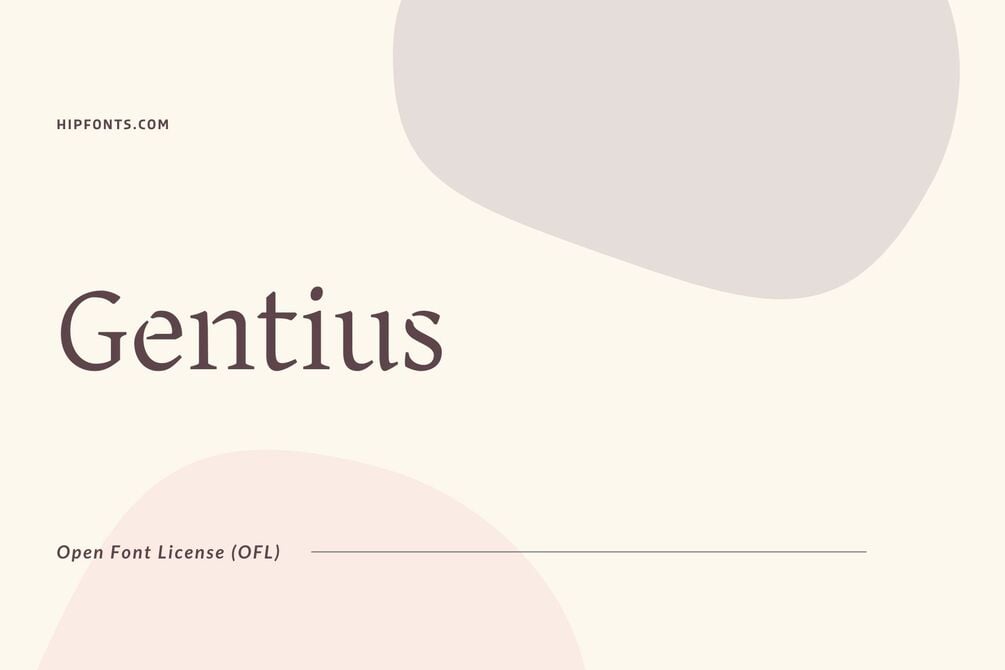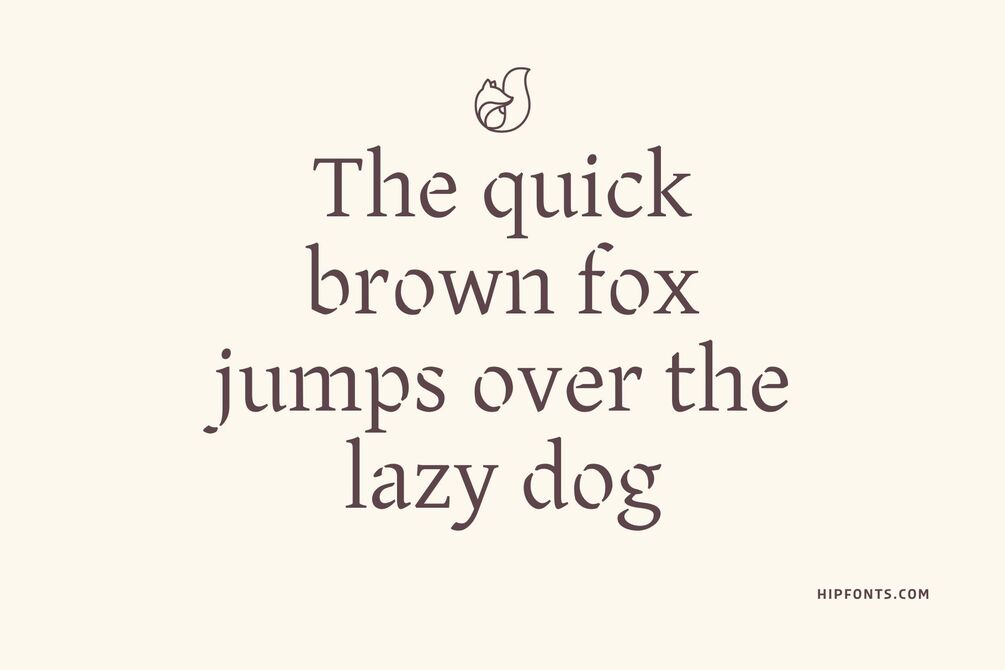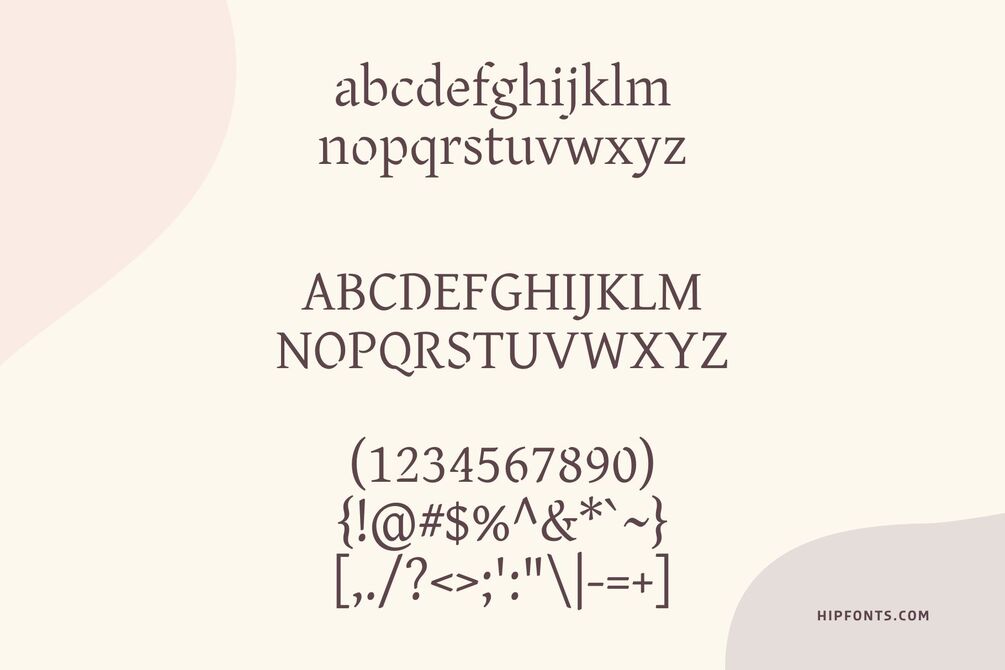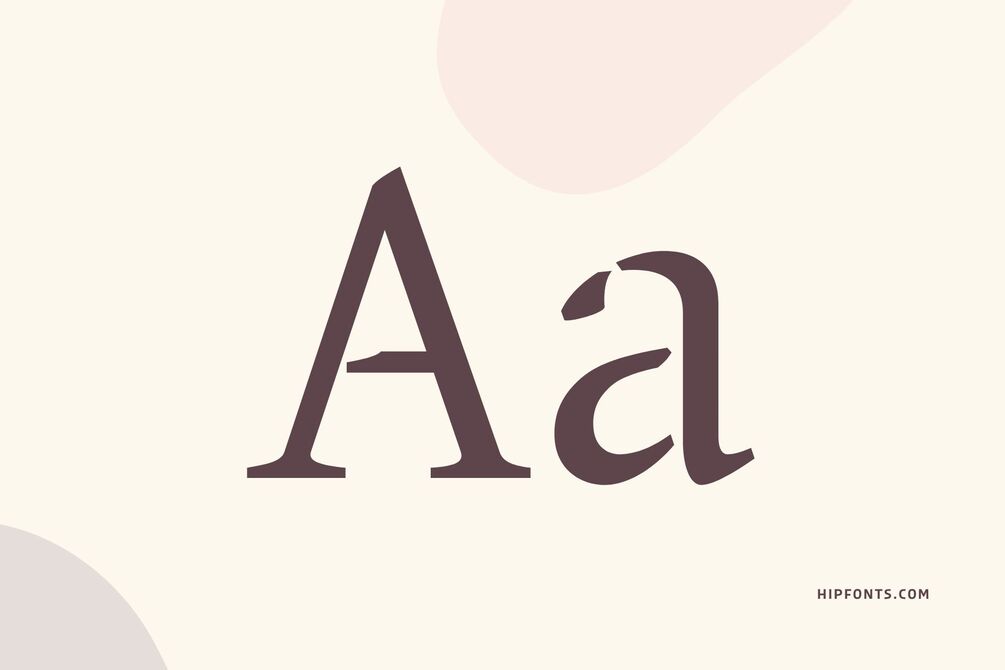
Gentius
Gentius is a sophisticated and elegant font that radiates timeless beauty. Designed by J. Victor Gaultney and Annie Olsen, Its graceful letterforms and refined details make it perfect for luxury branding, high-end packaging, and editorial design that seeks to convey a sense of luxury and exclusivity. Gentius brings a touch of sophistication to any project it is applied to.
This font's balanced proportions and delicate serifs contribute to its classic charm. Its versatility is reflected in its various weights, allowing for flexibility in typographic compositions. From the light and graceful thin weight to the bold and commanding black weight, Gentius offers options for creating striking typographic hierarchies.
Gentius exudes a sense of craftsmanship and attention to detail, making it a font of choice for projects that demand a refined and elegant aesthetic. Its versatility shines through in both print and digital applications, adding a touch of luxury and sophistication to various design projects.